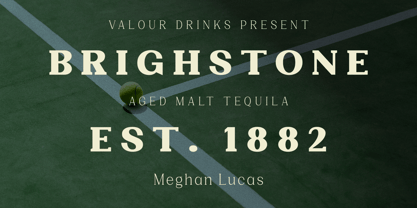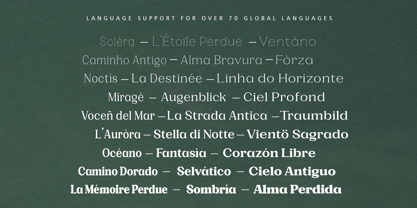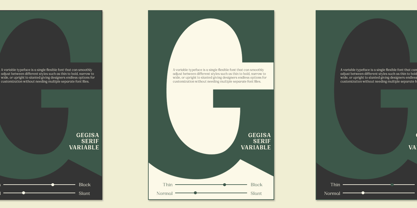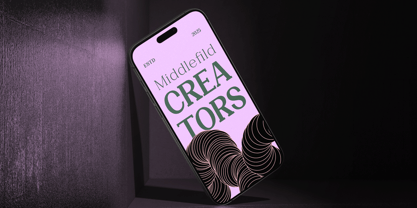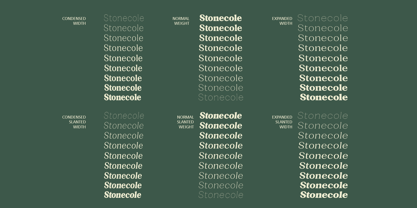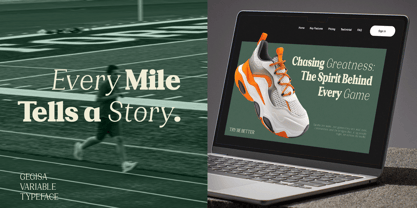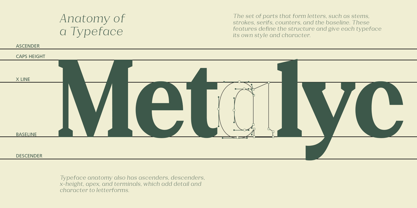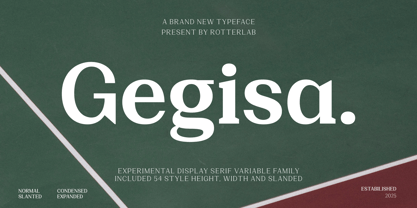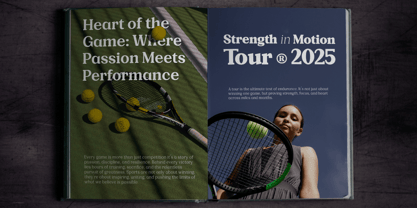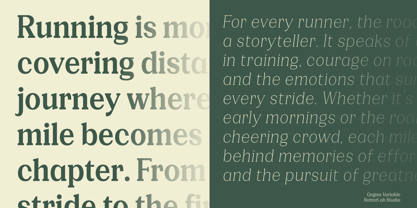
Gegisa
by Rotterlab Studio
The Gegisa Font Family was designed by Sidiq Fahmi and published by Rotterlab Studio. Gegisa contains 55 styles and family package options. More about this family
Gegisa is an experimental display serif that blends classic characters with a modern twist. Its bold yet soft serif shapes create an elegant and bold impression, perfect for editorial design, branding, and creative projects that want to stand out. This font comes in a variable family format with 54 different styles that combine height, width, and slant variations (height, width, and italic). This flexibility allows designers to customize the look as needed, from normal, condensed, expanded, to italic versions, without losing its distinctive character. With its strong visual balance and unique letterforms, Gegisa is an ideal choice for projects requiring typography with personality and high appeal.
Designers: Sidiq Fahmi
Foundry: Rotterlab Studio